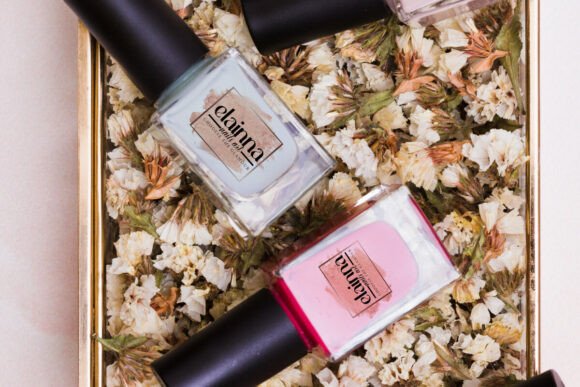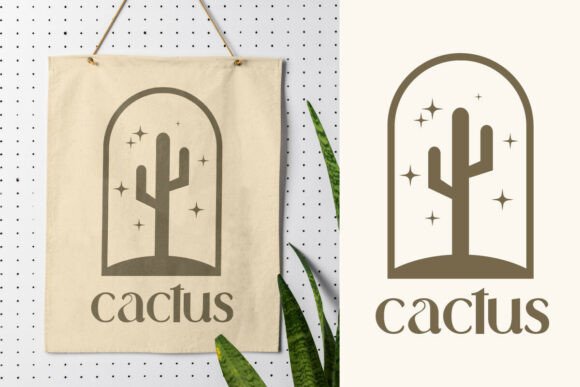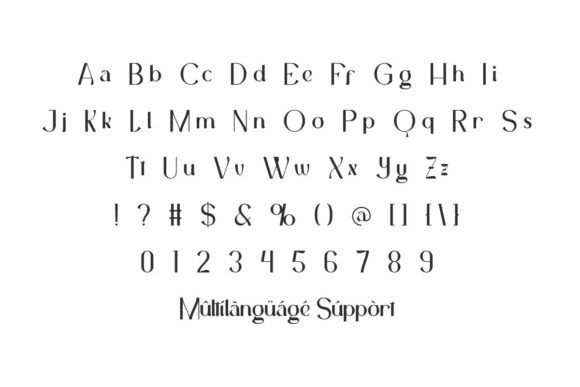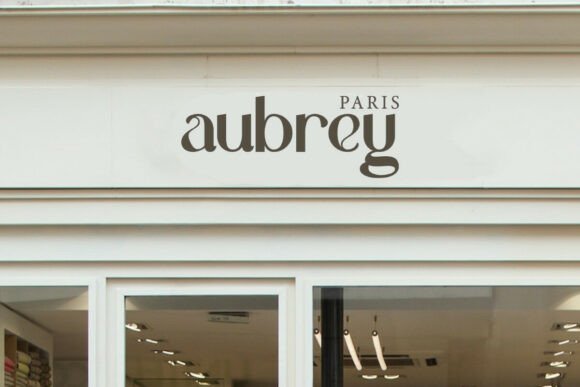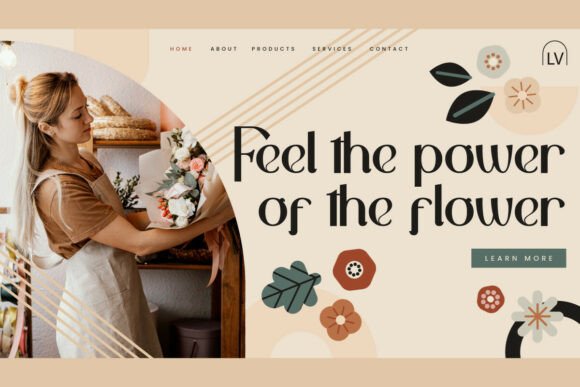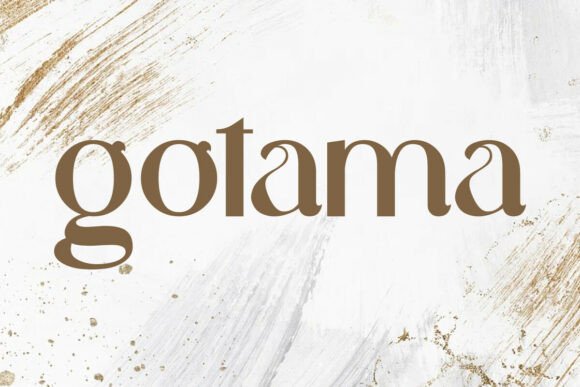
Elevate Your Brand with Modern Luxury
Have you ever stared at a blank page, trying to come up with the perfect design to represent your brand, but somehow nothing seems to stand out? We’ve all been there. It’s in these moments of creative frustration that we need a little help from a font that truly understands the art of high-class branding. That’s where Gotama Font comes in – a luxurious display typeface designed to elevate your designs and capture the attention of your target audience.
This sophisticated font is perfect for designers looking to add a touch of modern luxury to their work. With its elegant letters and clean, sans-serif style, Gotama Font is suitable for a wide range of designs, from logos and packaging to social media posts and websites. Its versatility makes it an invaluable tool for any designer looking to create unique and eye-catching designs that truly stand out.
Gotama Font Key Features
- Unique Characteristics: Gotama Font features a unique blend of traditional and modern design elements, with intricate details and subtle nuances that set it apart from other fonts.
Gotama Font Review
Overall, I’m really impressed with the Gotama Font ✨. The first thing that caught my attention was its elegant and modern design. The font has a beautiful balance of thin and thick lines, which gives it a sophisticated look. The letterforms are well-crafted and detailed, making it a great choice for any project that requires a touch of luxury.
One of the standout features of Gotama Font is its versatility. It can be used for both display and body text, and it looks great in a variety of settings, from headings to paragraphs. The font also includes a range of weights and styles, which makes it easy to customize and adapt to different design needs.
Here are some of the things that I love about Gotama Font:
- ✨ Elegant and modern design
- ✨ Versatile and can be used for both display and body text
- ✨ Includes a range of weights and styles
- ✨ Well-crafted and detailed letterforms
- ⚠️ The font may not be as readable at very small sizes
- ⚠️ Some of the letterforms may not be as detailed as others
Overall, I would highly recommend Gotama Font to anyone looking for a high-quality, versatile font. It’s a great choice for any project that requires a touch of sophistication and elegance.
Tips for Getting the Most Out of Gotama Font
For optimal results, use Gotama Font in conjunction with a clean and minimal design aesthetic. Avoid using it for body text, as it is best suited for headlines and titles. Experiment with different font sizes and colors to create visual interest.
Gotama Font is ideal for:
- Minimalist design projects
- Typography-focused designs